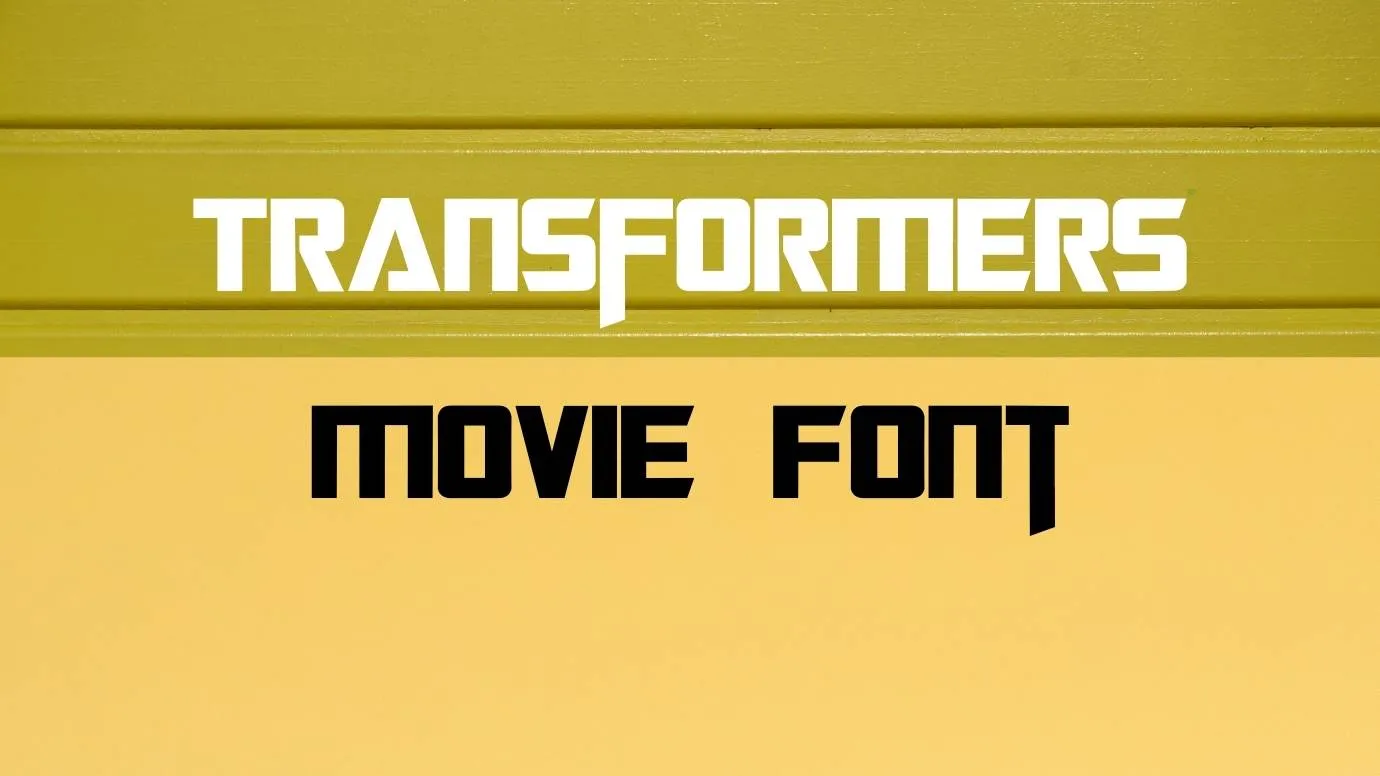
Transformers Movie Font Family! Transformers is a popular American Movie that was founded by a very famous director known as Michael Bay. Due to its outstanding graphics and story, this movie got tremendous success at the film box office.
It is perfect for using movie logos and titles of different animated cartoons. This marvelous typeface is best for making combinations with other display and logo fonts like Batman And Harley Quinn Font.